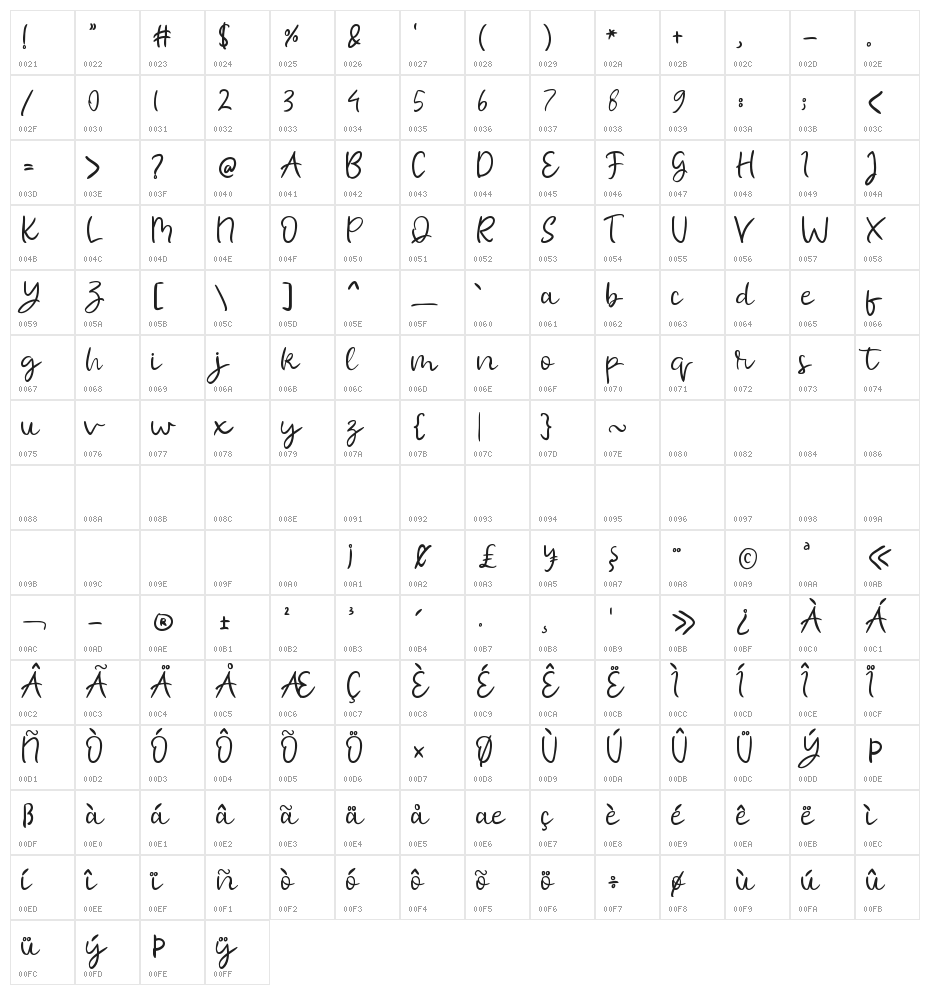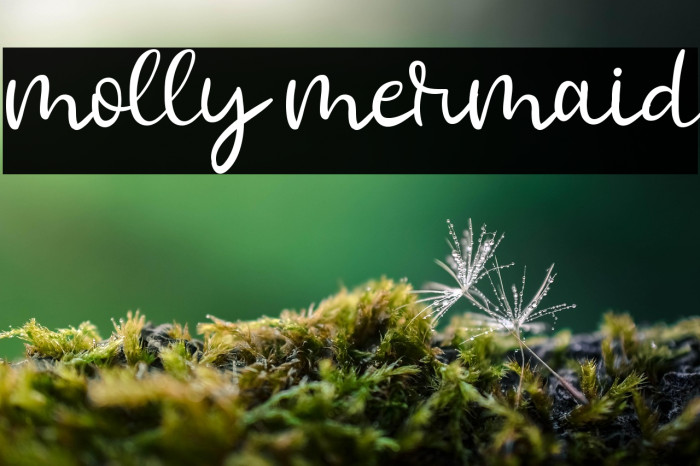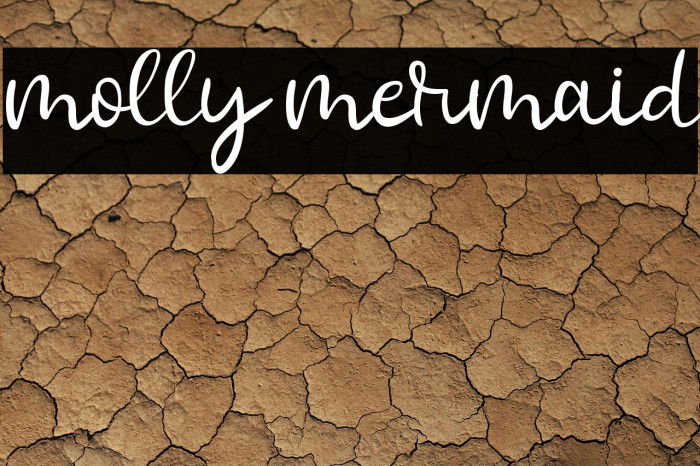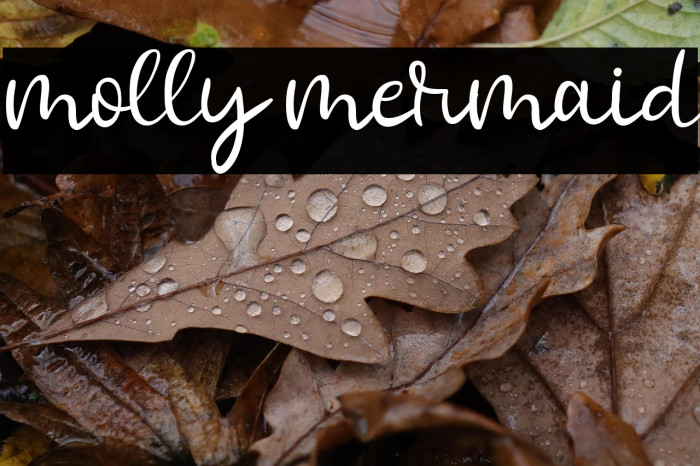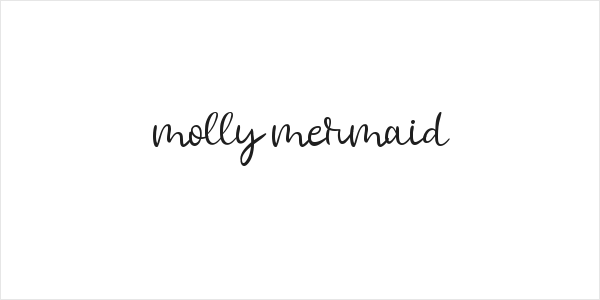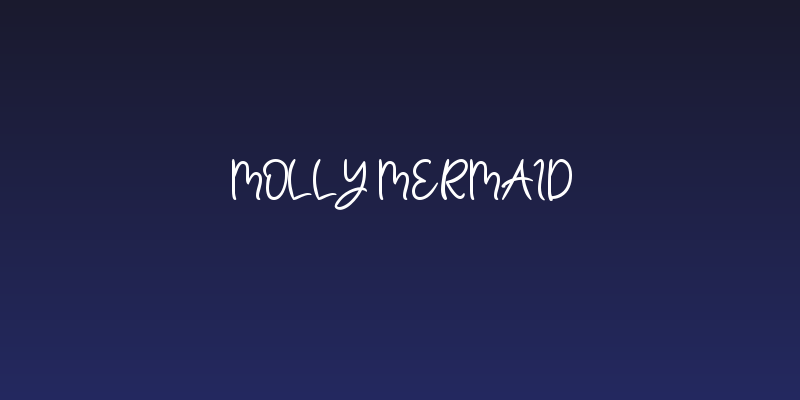
molly mermaid Font
molly mermaid Description
A playful, handwritten script font with a casual and flowing style, featuring smooth curves and a natural, organic feel.
| Overall Style | Casual, Organic |
| Use Case | Logos, Invitations, Personal projects |
| Proposed Projects | Greeting cards, invitations, personal branding. |